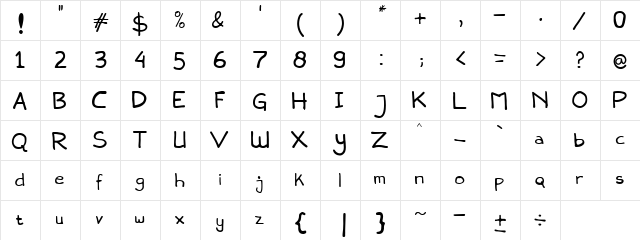
Snowlatte Regular
| Foundry | Chichucha Studio |
| Designer | Christoph Nino |
Design Context for Snowlatte Typeface
Snowlatte is a composed and adaptable typeface that performs quietly and consistently across a wide range of design contexts.